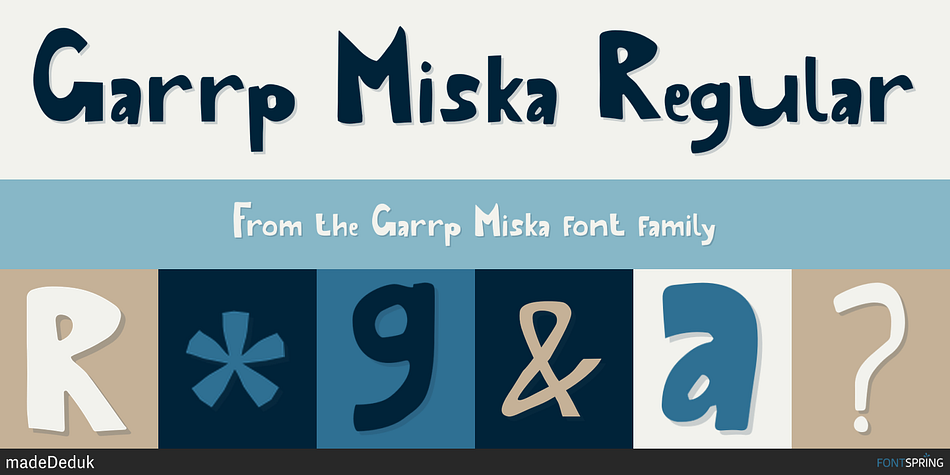
Garrp Miska Regular
Designed by Suandana Ipandemade, Garrp Miska is a kids font family. This typeface has two styles and was published by madeDeduk.
Gary Miska is a cute font with two style neu and regular fun happiness look and will makes this font suitable for your any project design.
- ligature